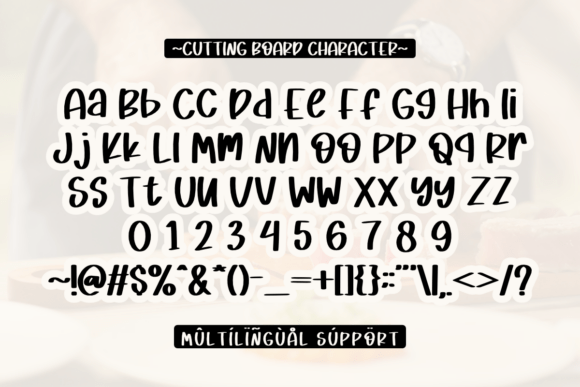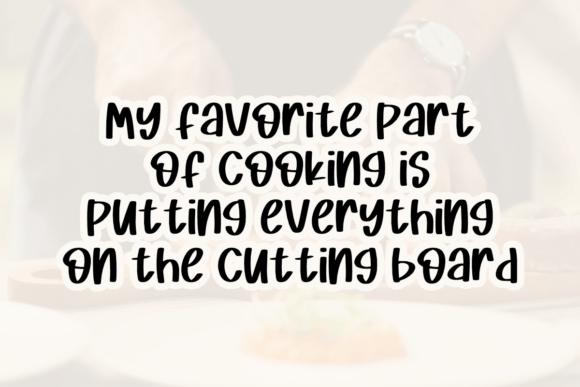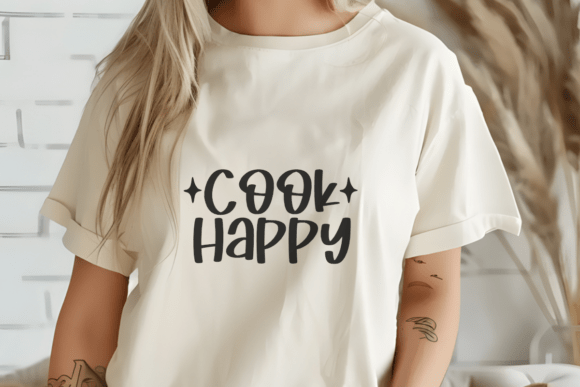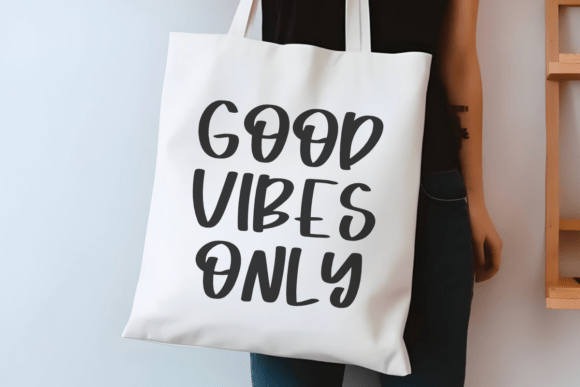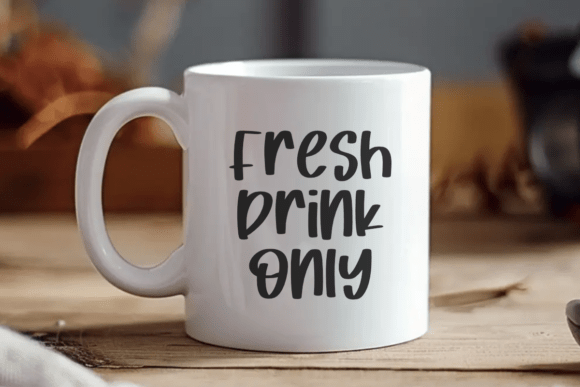
Discover the Charm of Cutting Board Font: A Designer’s New Best Friend
I’ll never forget the time I was working on a wedding invitation project, and my client asked for a font that was “cute, yet elegant.” I scoured the internet, trying out font after font, but nothing seemed to fit the bill. That was until I stumbled upon the Cutting Board font. It was love at first sight! ✨ This adorable sans serif font has become a staple in my design toolkit, and I’m excited to share its charm with you.
So, what makes Cutting Board font so special? Here are a few things that I just can’t get enough of:
- ✅ Cute and minimalist design: This font is perfect for designers who want to add a touch of whimsy to their projects without going overboard.
- ✅ Versatility: From greeting cards to wedding invitations, gift labels to mugs, Cutting Board font is the perfect choice for a wide range of design projects.
- ✅ Ease of use: This font is incredibly easy to read, even at small sizes, making it perfect for body text or captions.
Of course, no font is perfect, and Cutting Board has a few quirks to keep in mind:
- ⚠️ Limited glyphs: While Cutting Board has a range of standard glyphs, it’s not as extensive as some other fonts on the market.
- 🤔 Not ideal for body text: While it’s easy to read, Cutting Board font is really designed for headlines and titles. For longer blocks of text, you may want to choose a different font.
The Story Behind Cutting Board Font
So, who created Cutting Board font, and what’s the story behind it? While the font’s origins are a bit murky, it’s clear that it was designed with love and care. The designer, who wishes to remain anonymous, was inspired by the simple, elegant lines of wooden cutting boards. They wanted to create a font that was both cute and sophisticated, perfect for a wide range of design projects.
| Font Name | Cutting Board Font |
| Author | CraftedType Studio |
| What type of projects is Cutting Board font best suited for? | Cutting Board font is perfect for greeting cards, wedding invitations, gift labels, mugs, t-shirts, quotes, labels, and more! |
| Is Cutting Board font easy to read? | Yes! Cutting Board font is designed to be easy to read, even at small sizes. |
| Does Cutting Board font have any special features? | Yes! Cutting Board font has a range of OpenType features, including glyphs and stylistic alternates. Experiment with these features to add some extra flair to your designs. |
And there you have it – a comprehensive guide to Cutting Board font! Whether you’re a designer, crafter, or creative hobbyist, this adorable sans serif font is sure to become a favorite in your toolkit. 💕